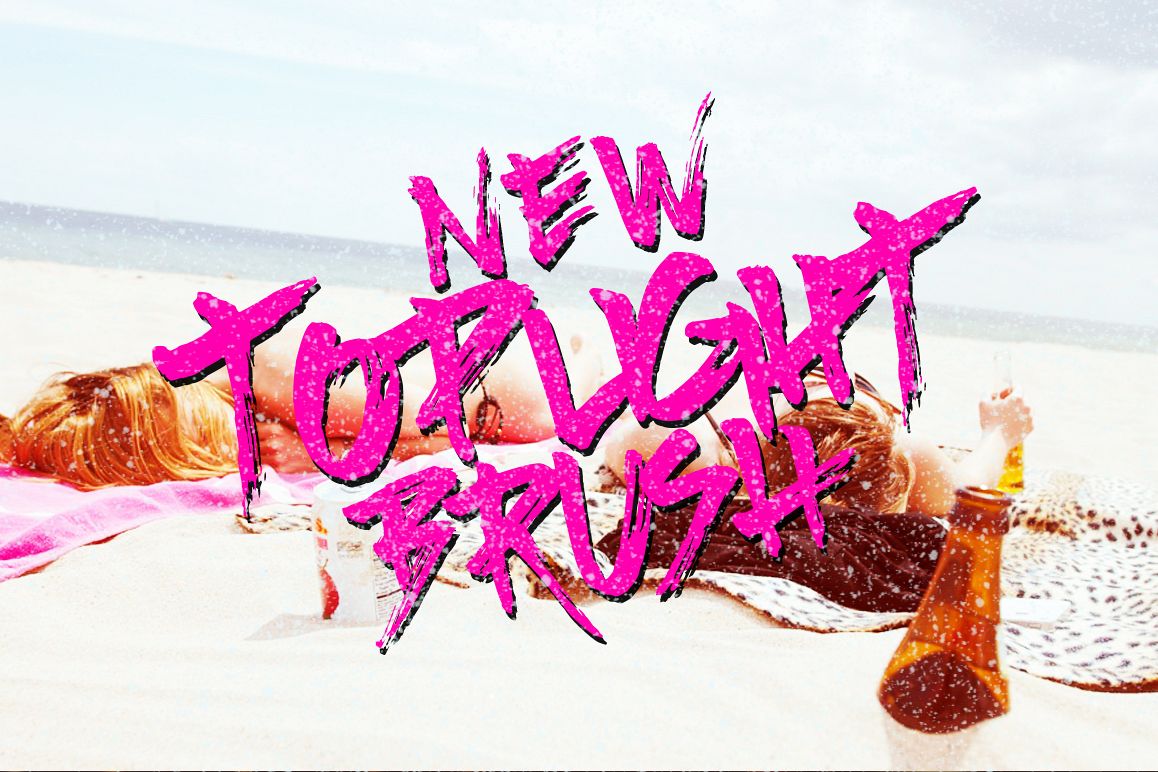
Top Light Brush Typeface
TopLight-Regular
Top Light Brush Typeface is a beautiful paintbrush font which has a bit the look and feel of a graffiti font. Top Light font has rough lines and is perfect for when you need to have a street and rough look & feel.